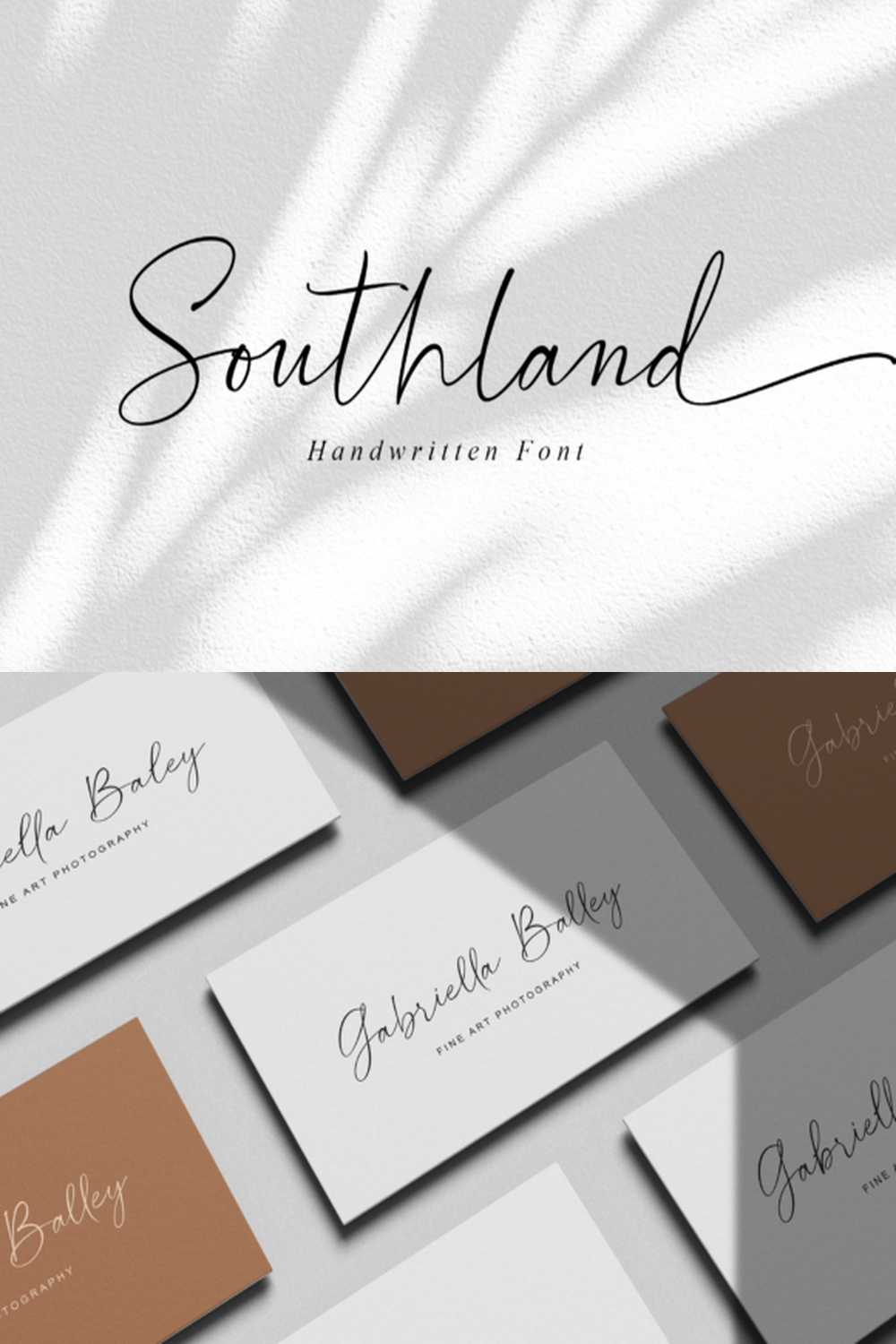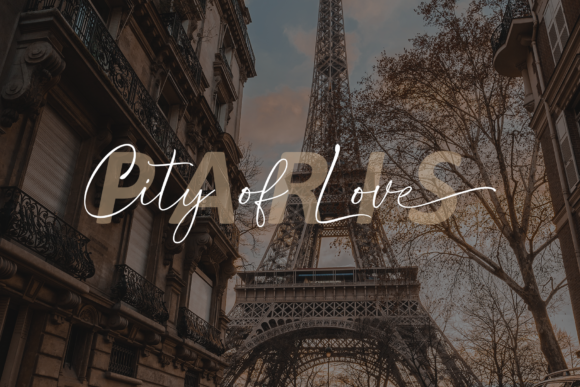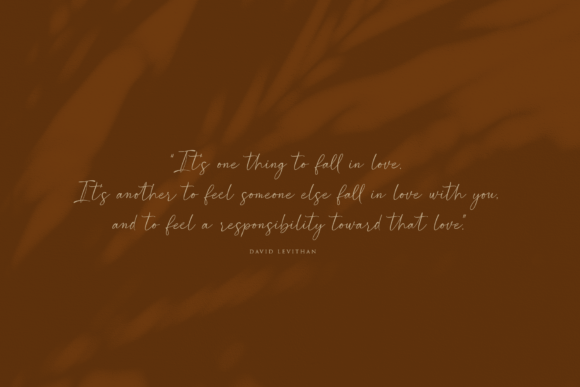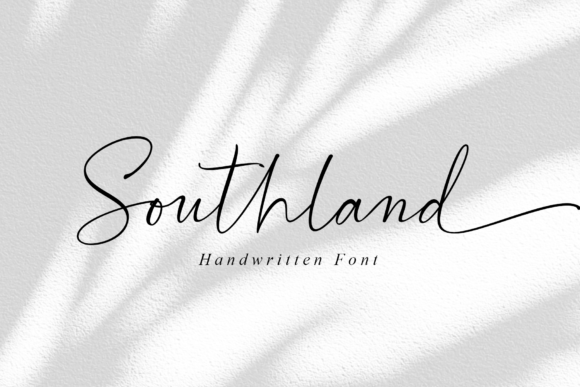
Southland Font: Elegant Calligraphy for Wedding Invitations & Branding
About the Southland Font
Crafted with precision, the Southland Font is ready to bring your ideas to life. Southland is a magical handwritten font carefully created with a touch of elegance. This is a beautiful combination of timeless elegance and authentic calligraphy. Southland is the perfect font for making original and outstanding designs.
Southland Font Usage Examples